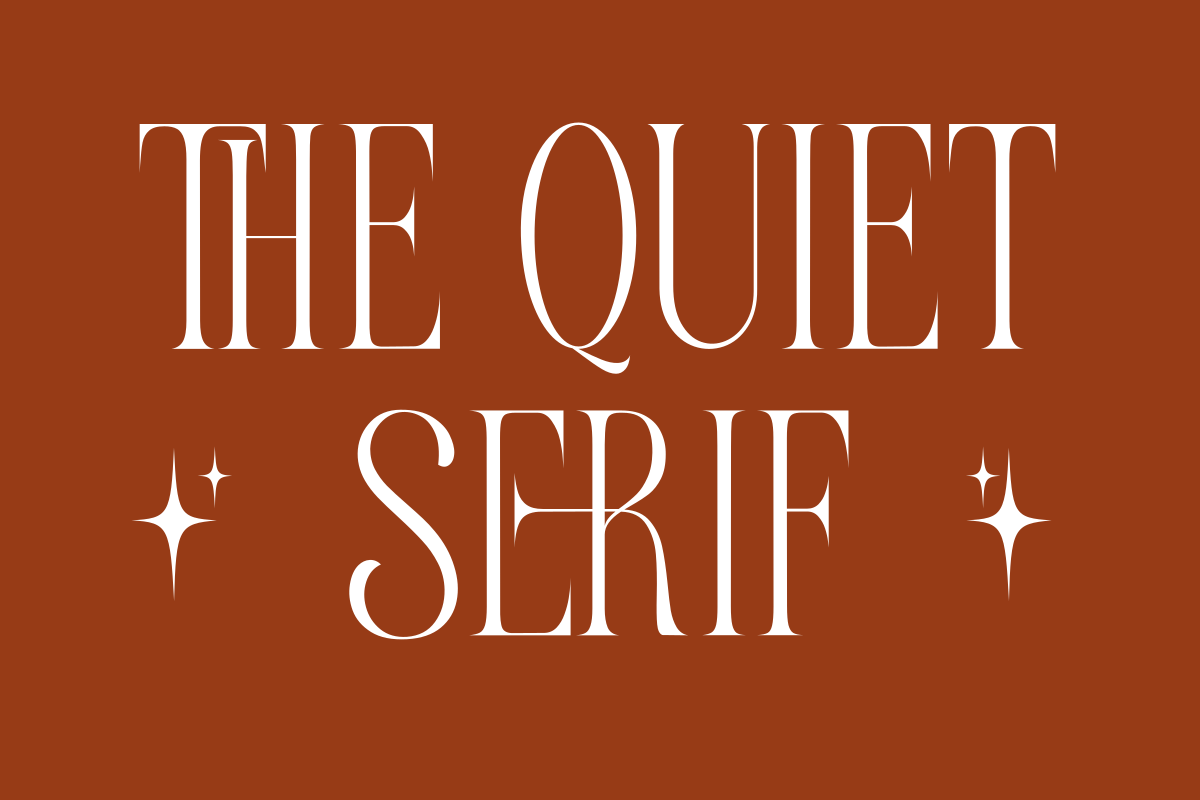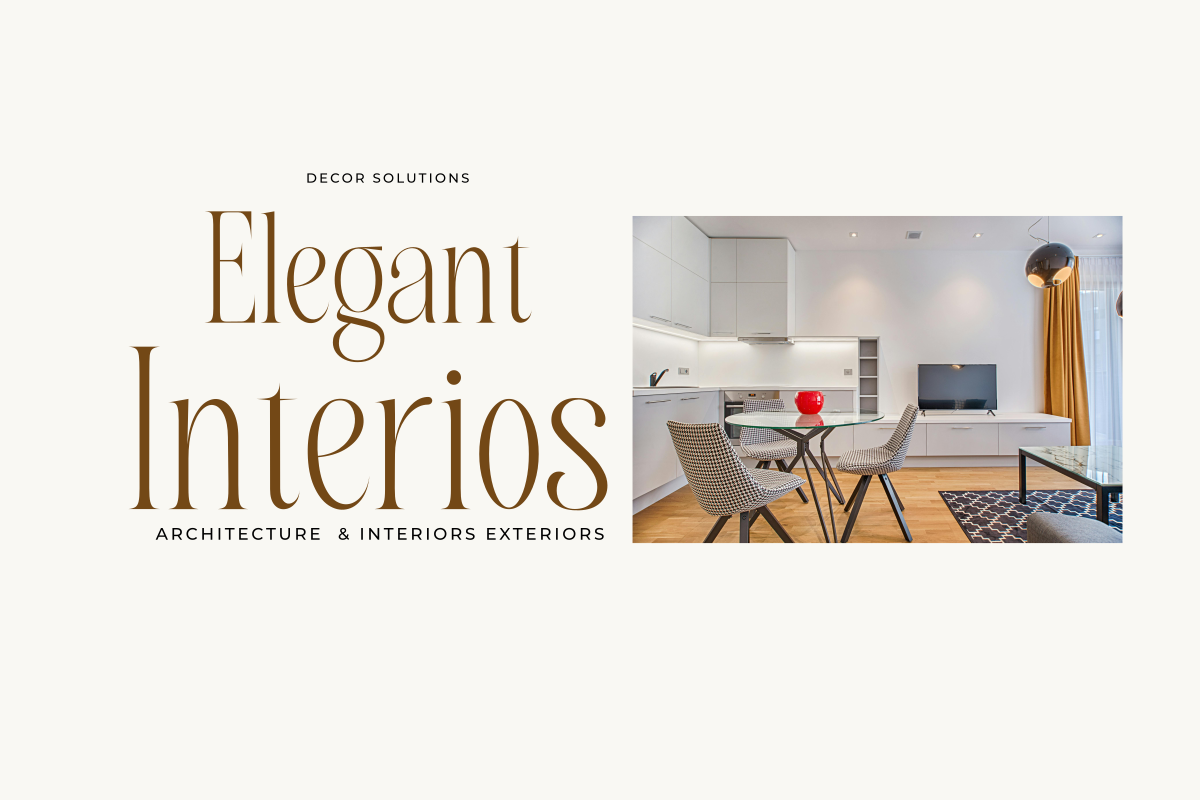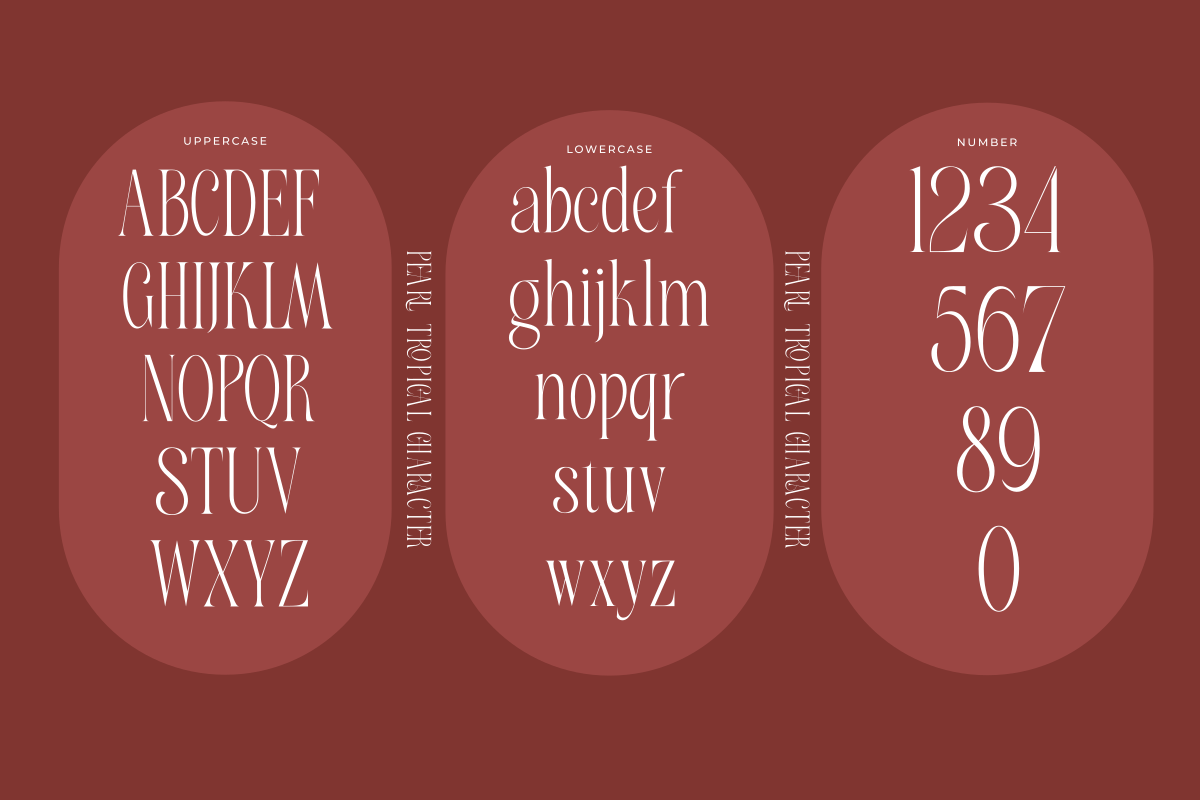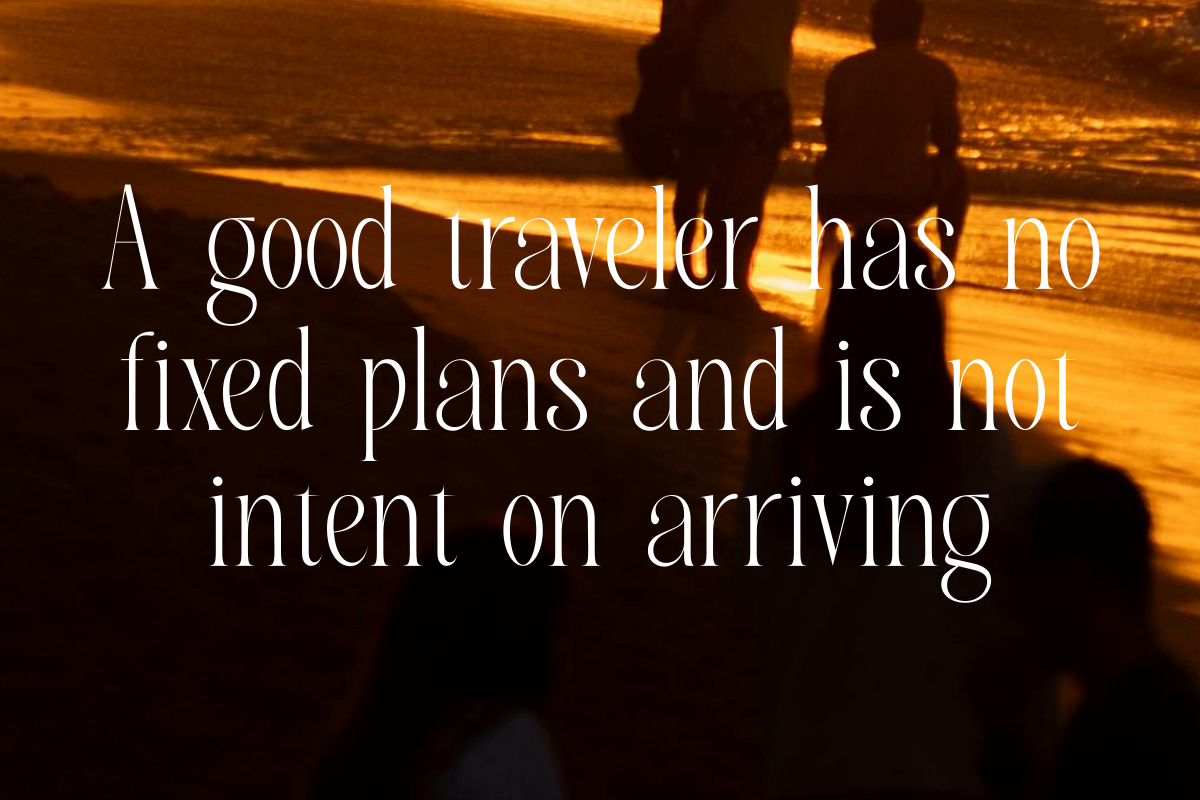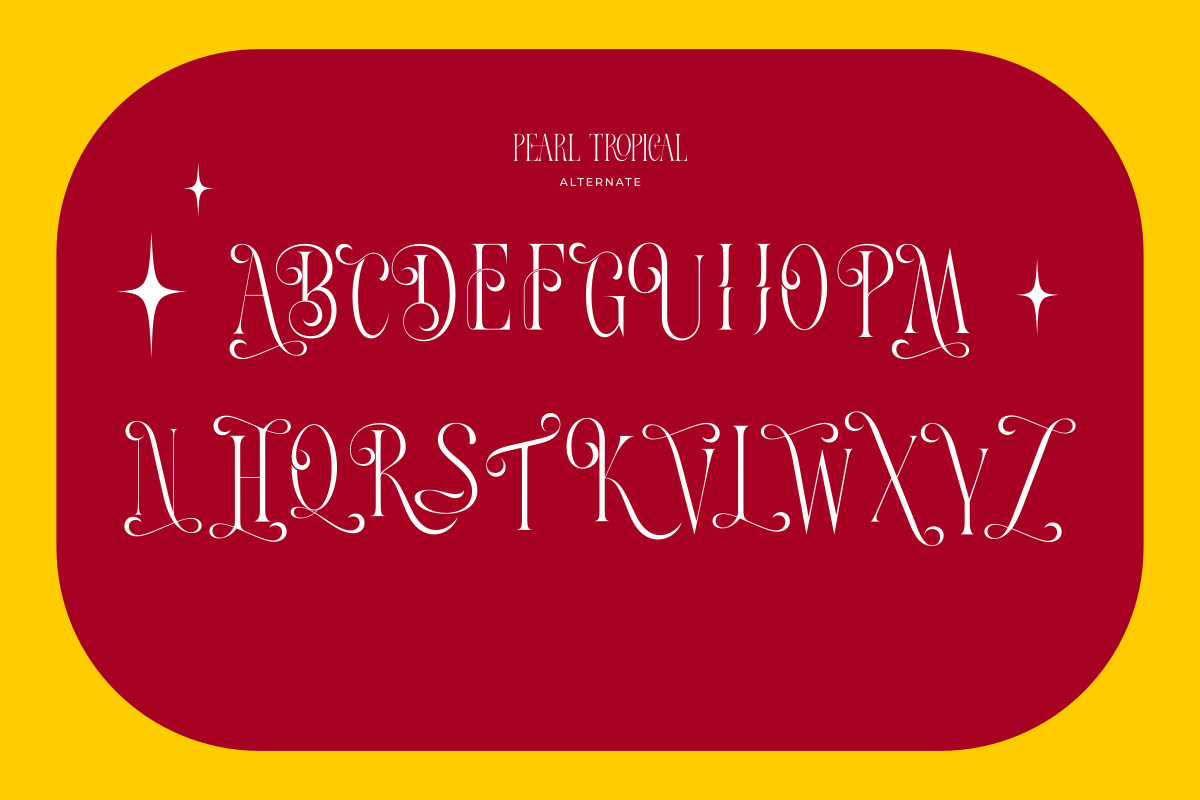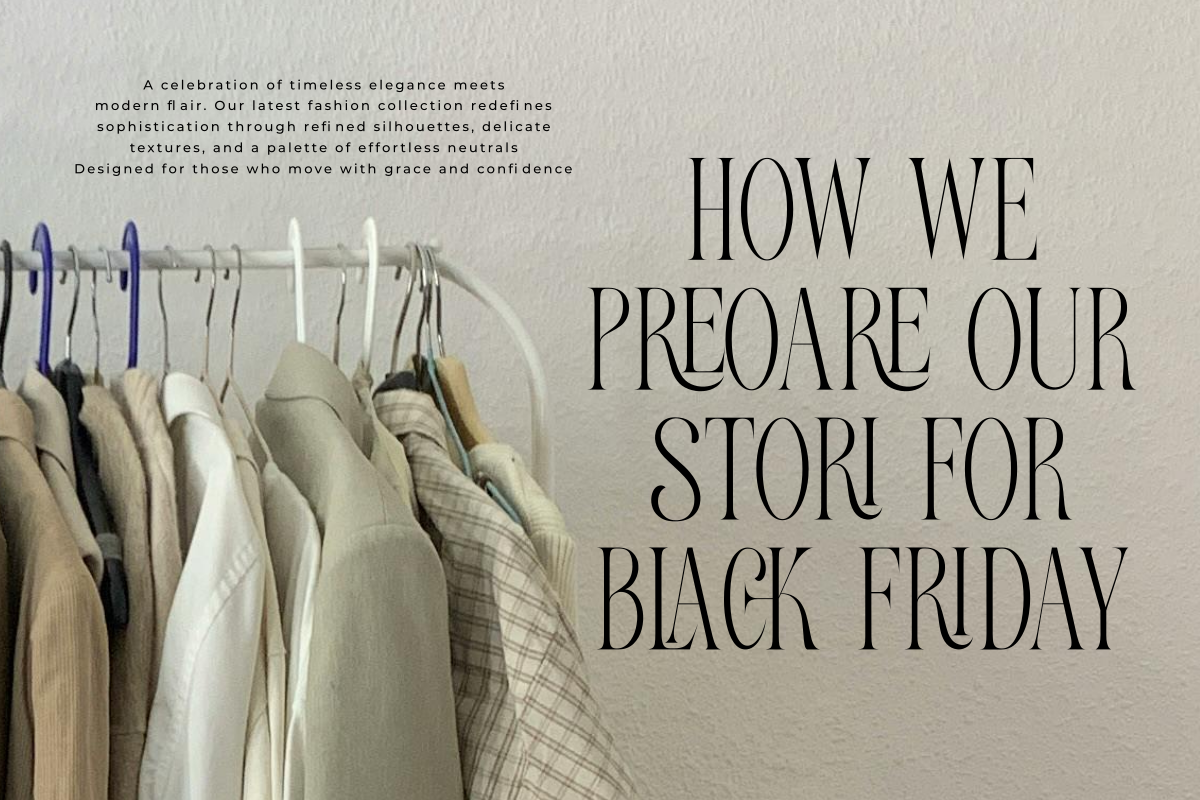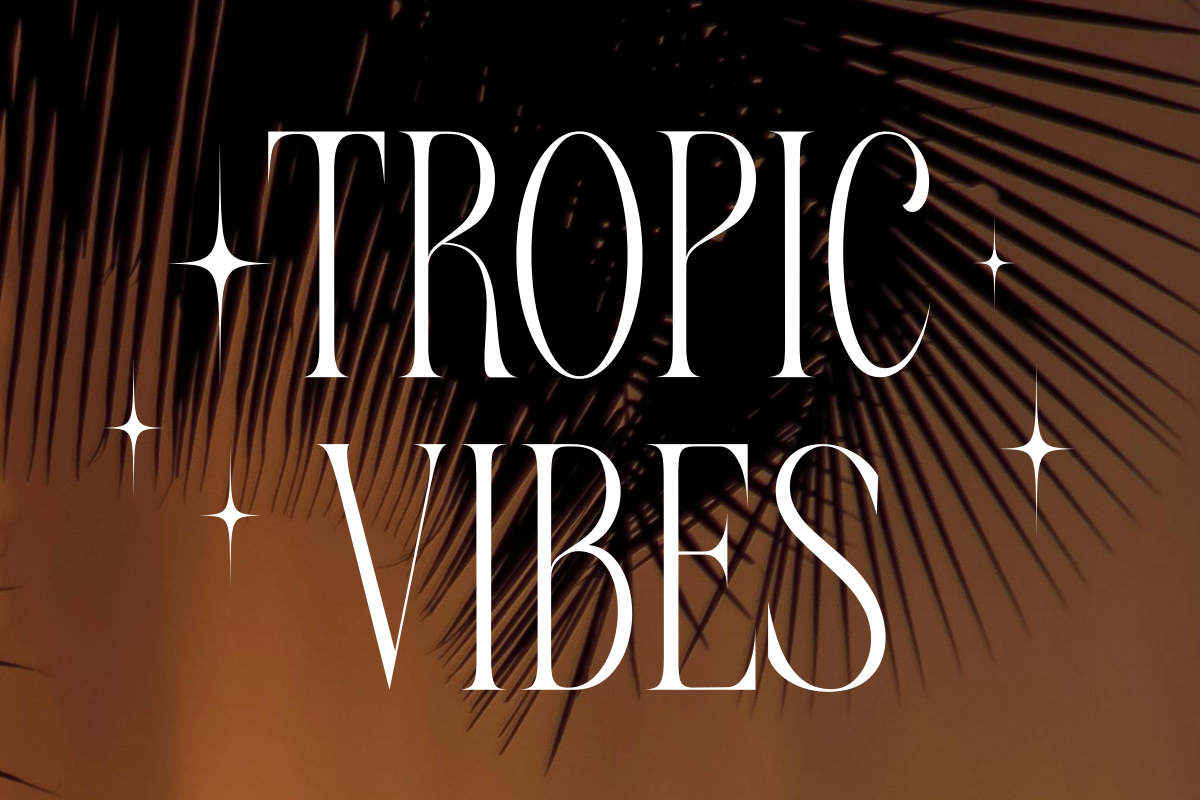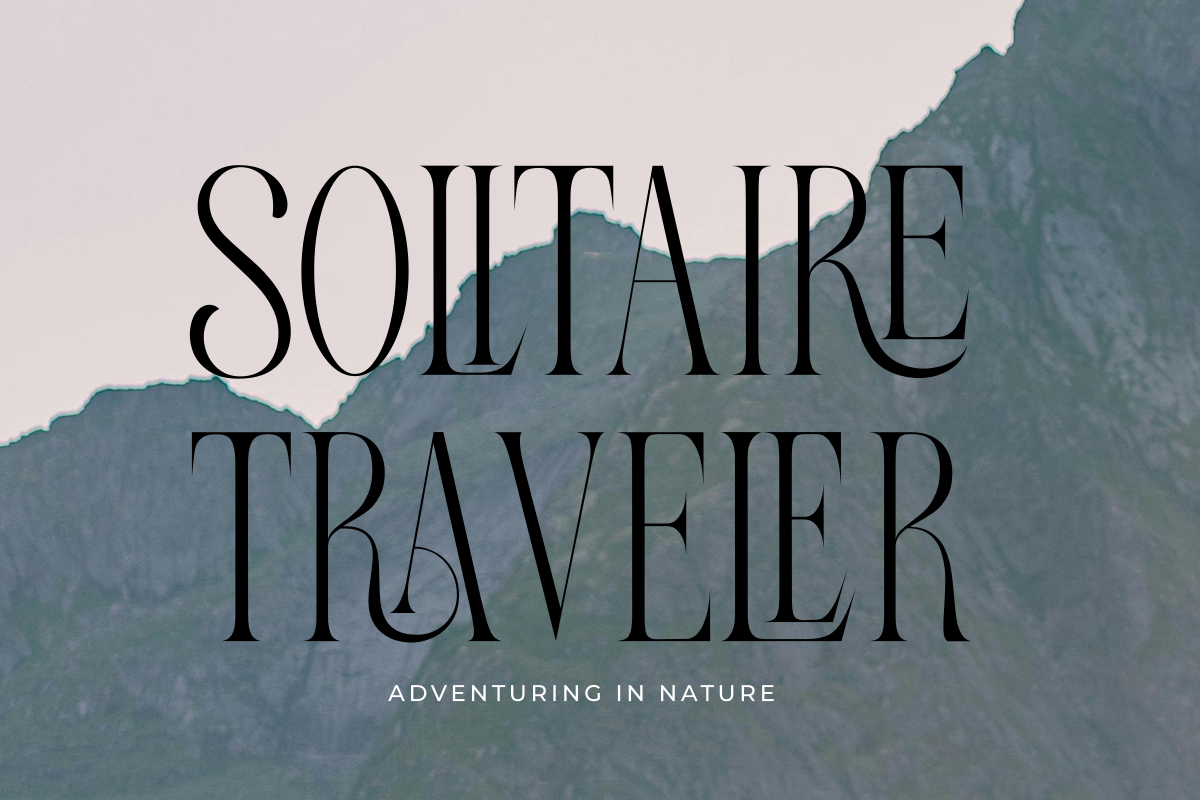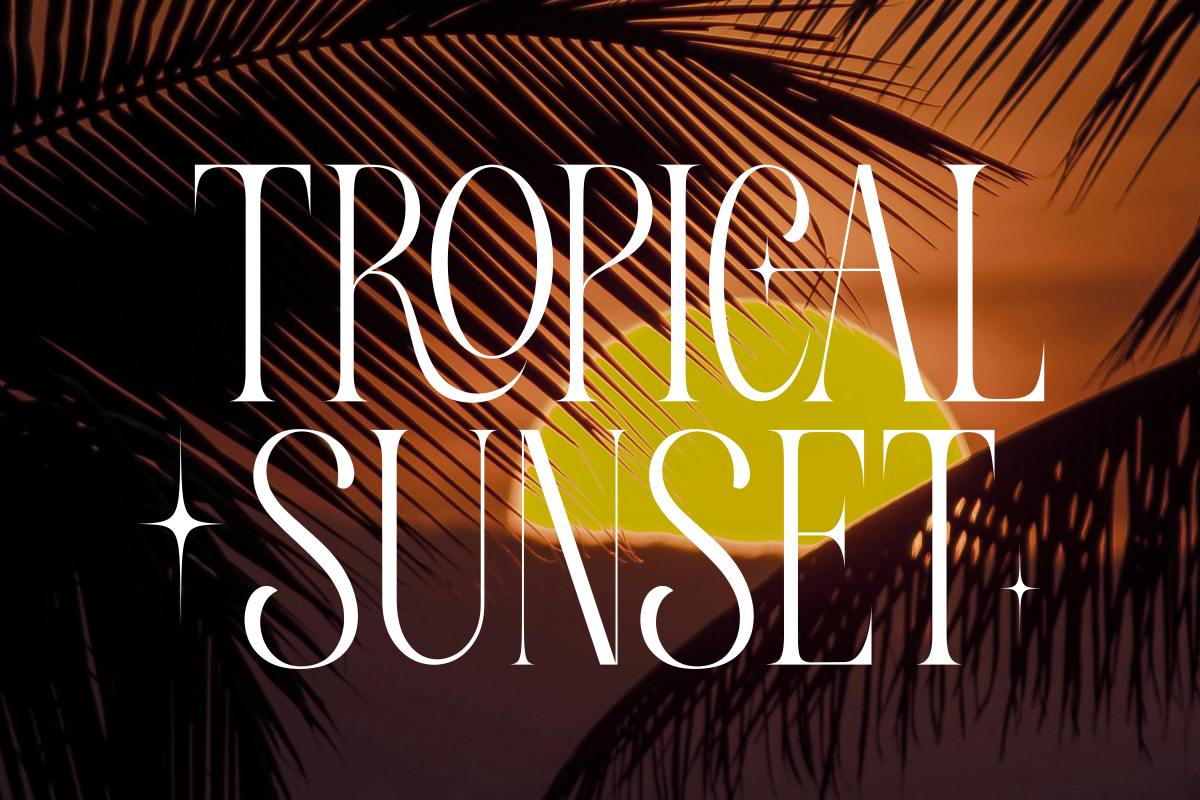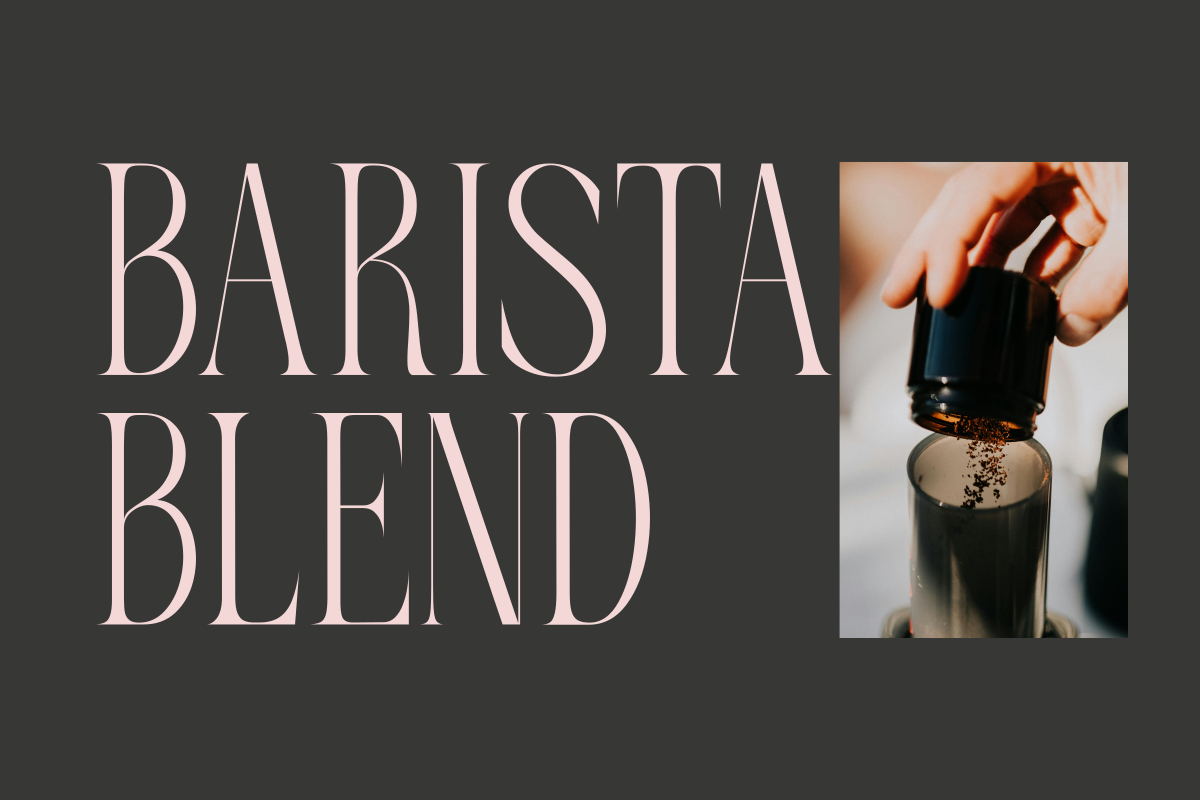
Pearl Tropical
Pearl Tropical is a semi-condensed serif font that blends timeless elegance with a touch of exotic warmth. With refined details and graceful proportions, it's perfect for branding, packaging, and editorial design that seeks a sophisticated tropical vibe